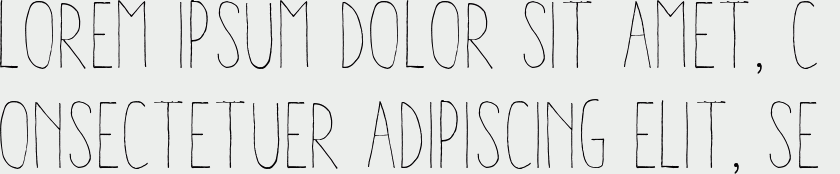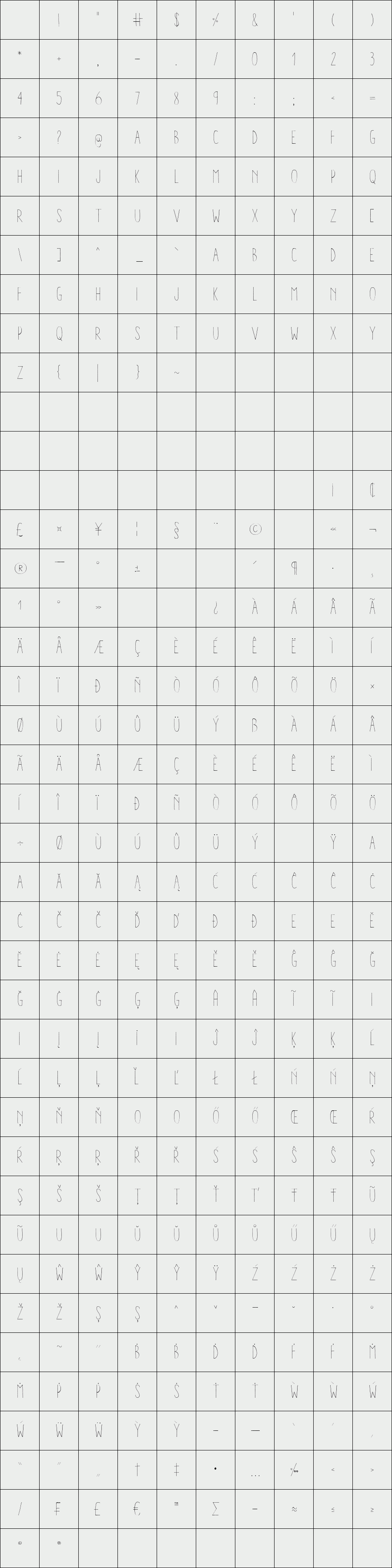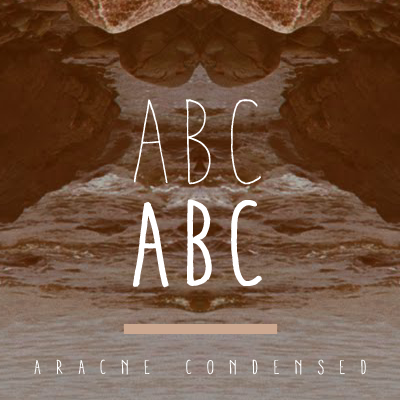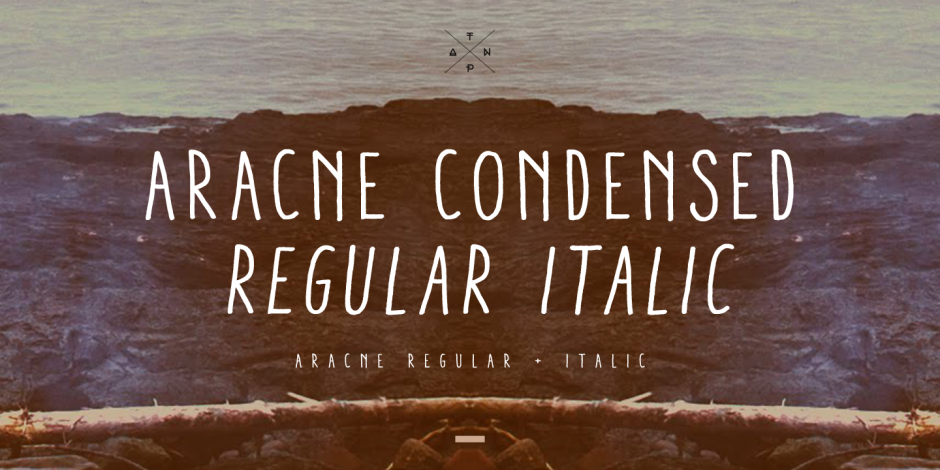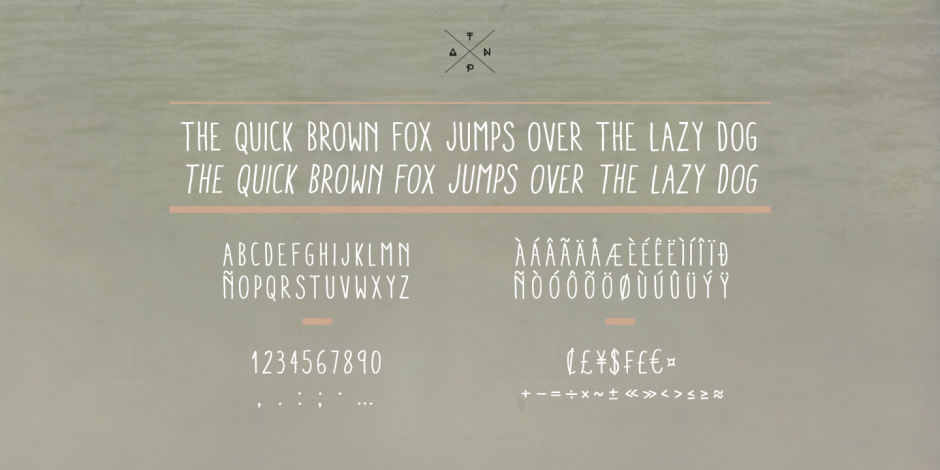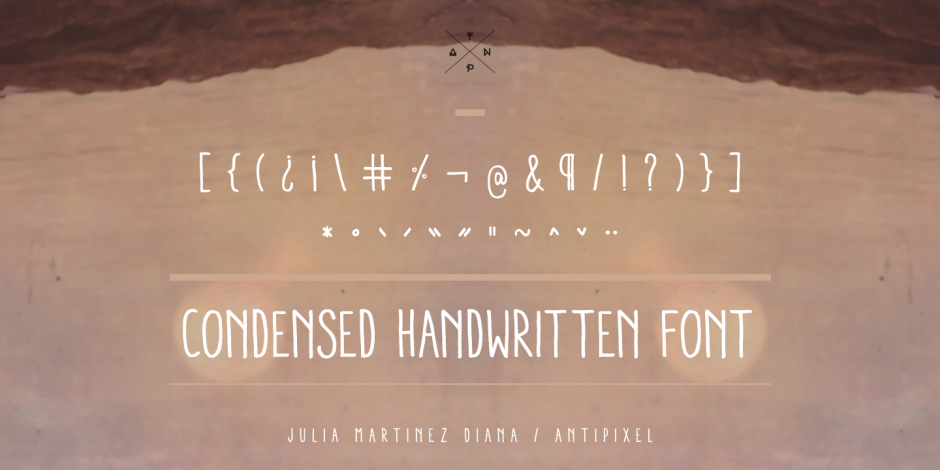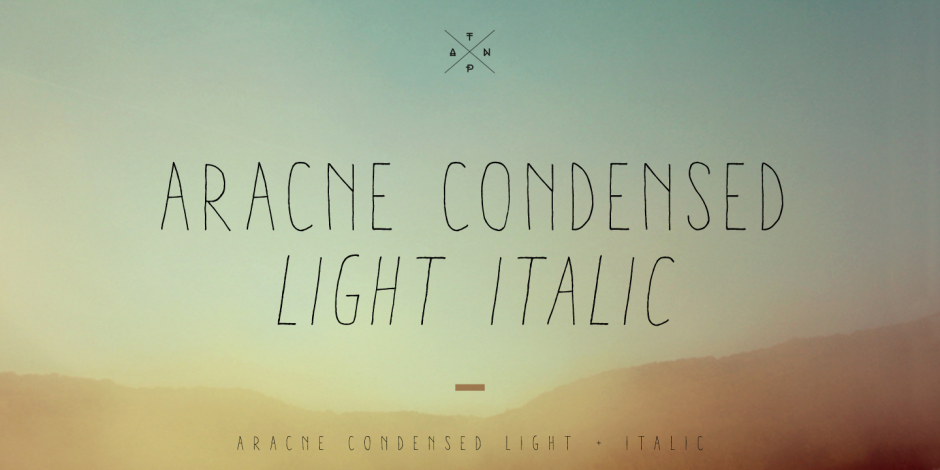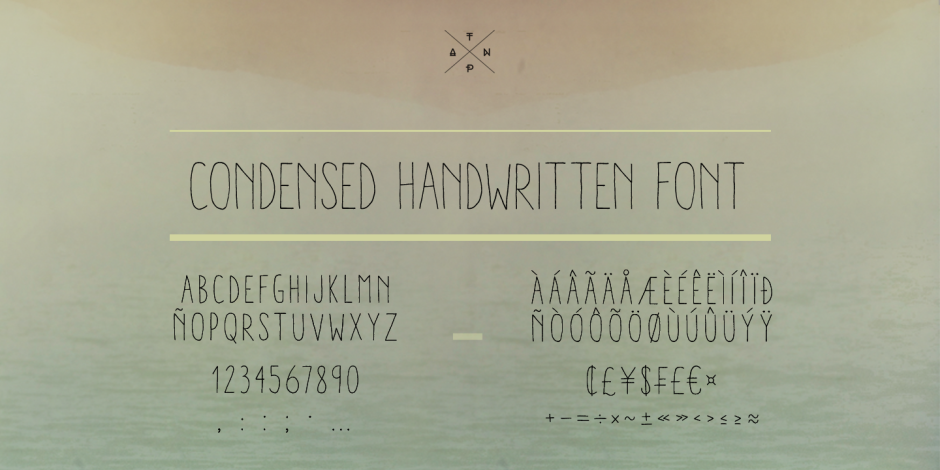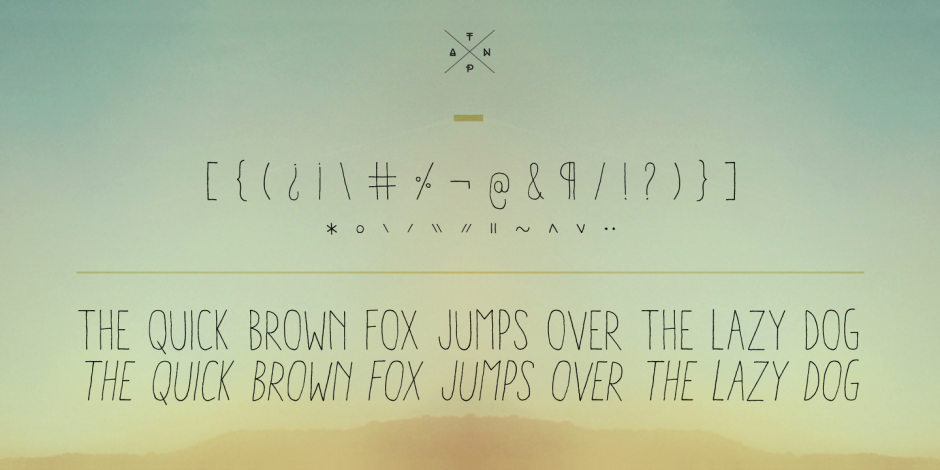
Aracne Condensed
/ Aracne Condensed Light
Aracne Condensed was created as an extended version of the font Aracne.
It’s recommended usage is for display titles, because of its good legibility and quality of glyphs.